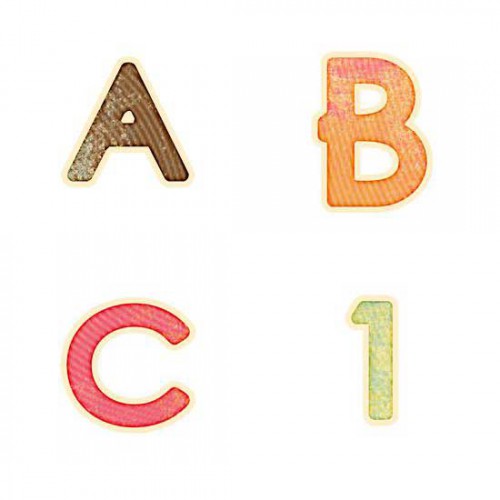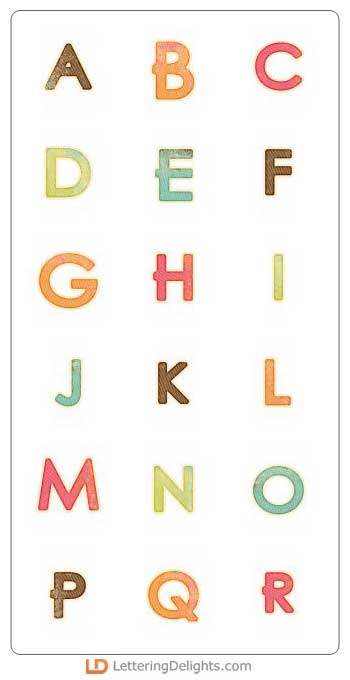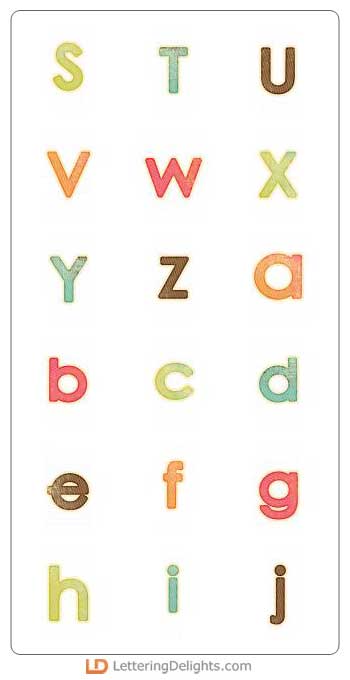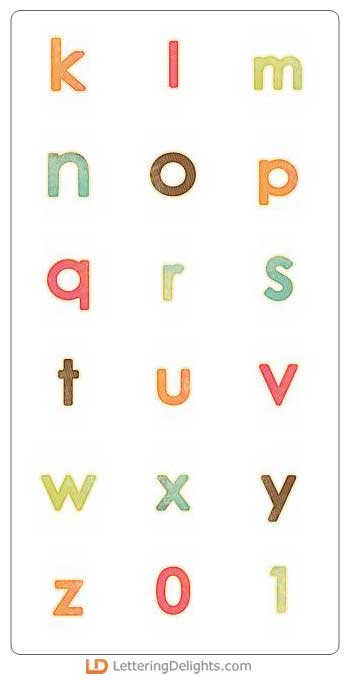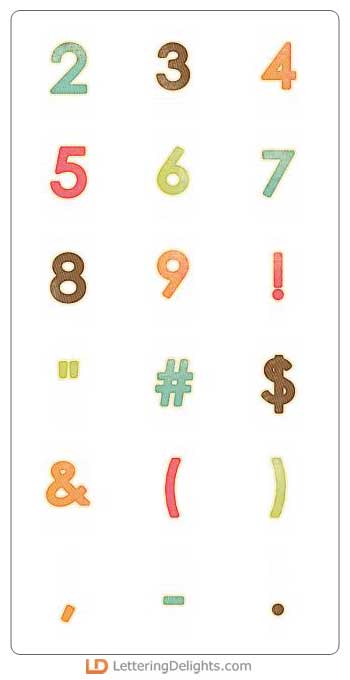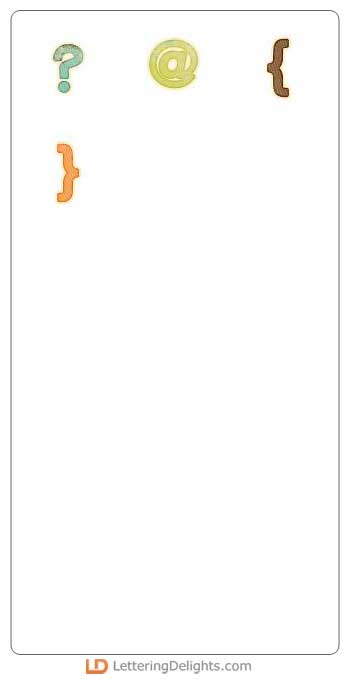
The Card Cafe Alphabet is such a fun alphabet, you'll use it for many projects beyond the ones you create with the Card Cafe Ultimate Card Kit. However, there are so many elements in this collection, we're not sure you'd ever need much more than this set. And the alphabet, along with everything else, is perfectly color coordinated.